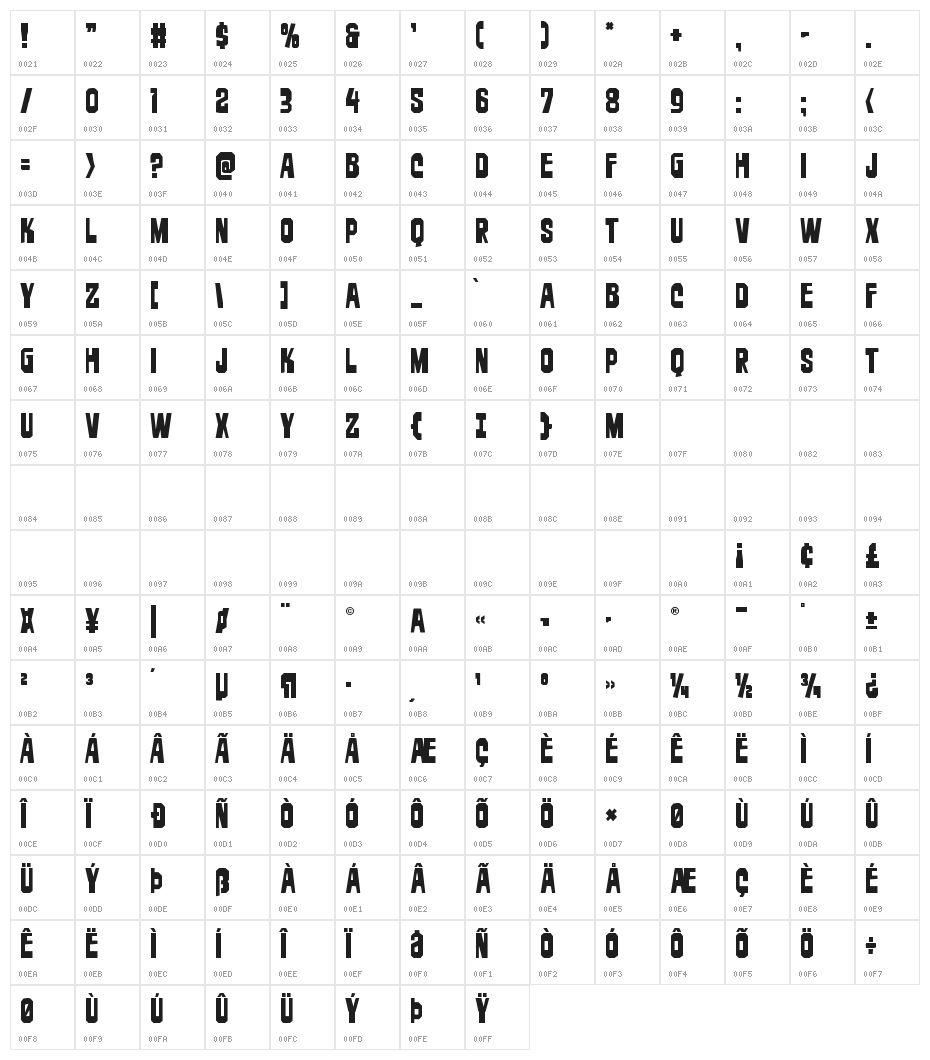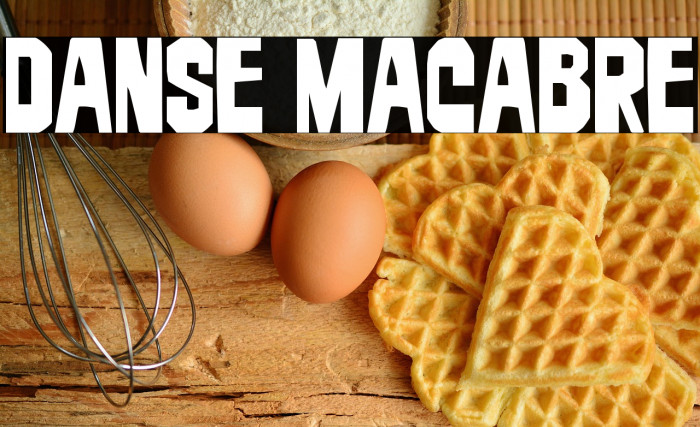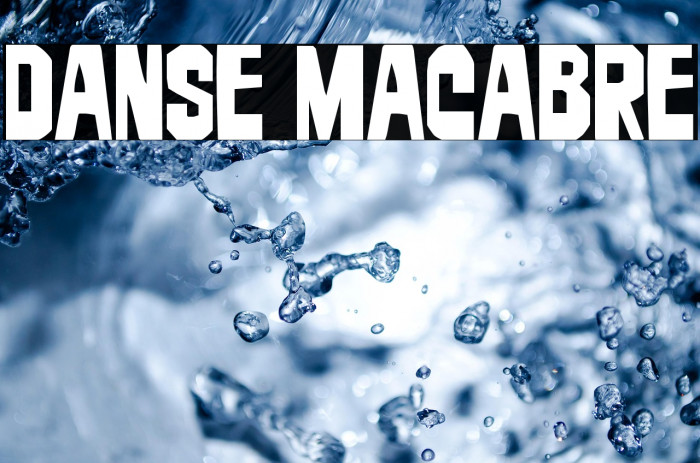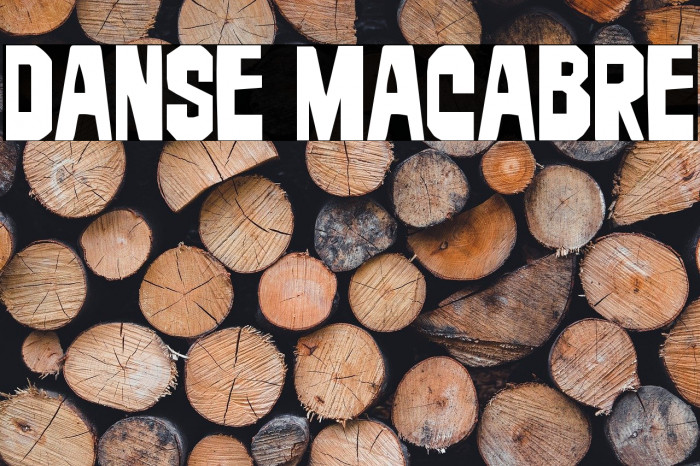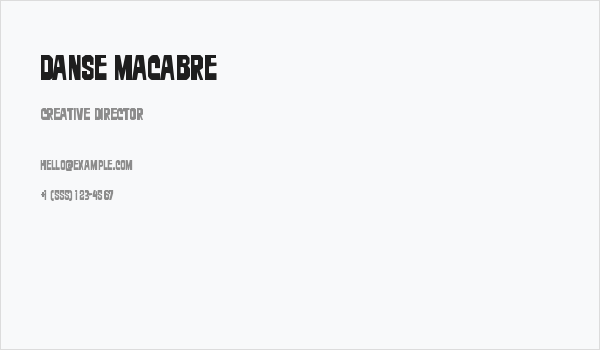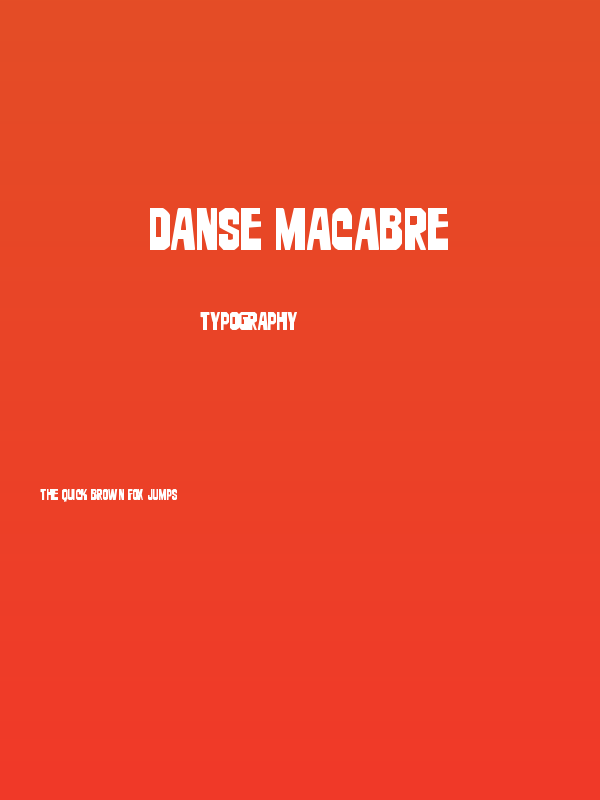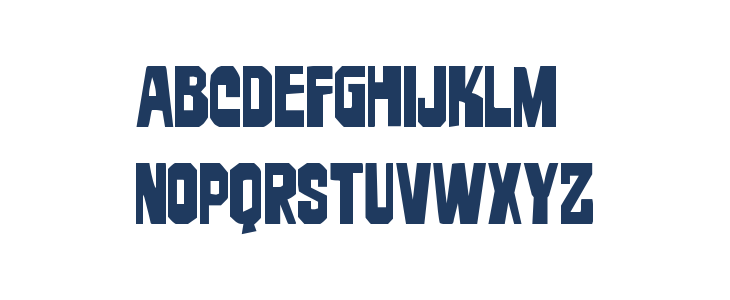
Danse Macabre Font
Danse Macabre Description
This font features a bold and striking design with a strong presence. The characters are blocky and angular, giving a sense of strength and solidity. The uppercase letters are particularly prominent, with sharp edges and a slightly condensed form that enhances their impact. The numbers and special characters maintain this bold style, ensuring consistency across all elements. This font is ideal for making a statement, with its high contrast and attention-grabbing appearance.